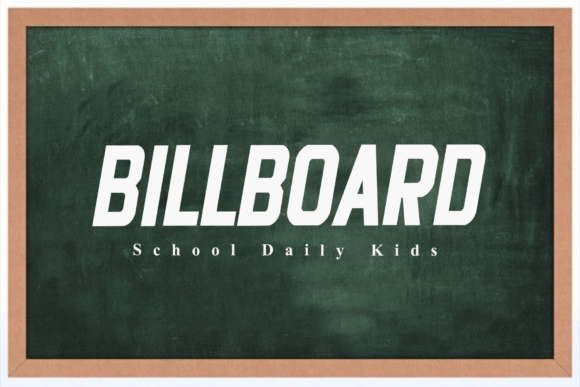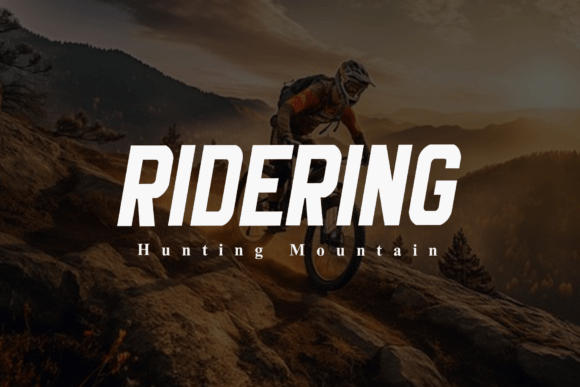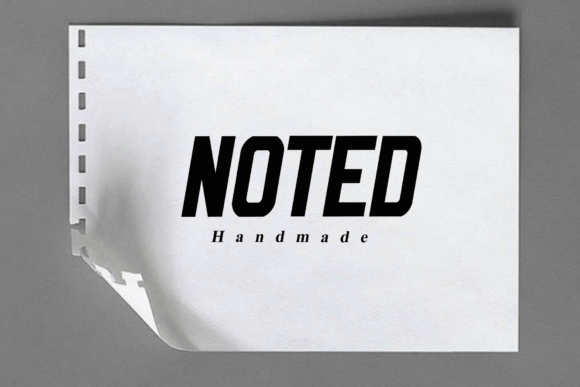
Introduction to Motor Cycle Font
Motor Cycle is a bold and assertive sans serif font.
No matter the topic, this font will be an incredible asset to your fonts library, as it has the potential to elevate any creation .
Key Features of Motor Cycle Font
Why Choose Motor Cycle Font?
Motor Cycle Font offers exceptional quality and versatility, making it a valuable addition to your design toolkit. Whether you’re creating for personal projects or commercial use, Motor Cycle Font delivers professional results.